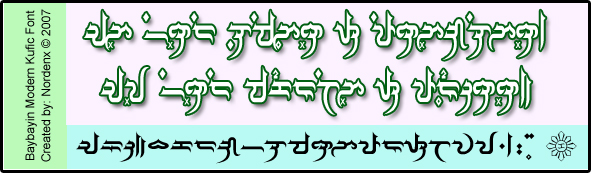
The Script
Baybayin script is an ancient form of writing by native islanders and tribes in the South East Asian archipelago we now know as the Philippines.
The Font
I created true type fonts (TTF) I called "Baybayin Modern" to use in modern art. The fonts are stylized modern composite of many examples from the past but the style is based primarily on my calligraphy work and handwriting. These fonts should not be considered as historically accurate examples of the Baybayin. The font is calligraphic & artistic representations and the characters’ shapes, sizes and weights have been made uniform in order to present a neat and elegant printed appearance.
The Style (Kufic)
Kufic is the oldest calligraphic form of the various Arabic scripts and consists of a modified form of the old Nabatean script. It was in this script that the first copies of the Qur'an were written. Islam is one of the oldest organized religions to be established in the Philippines. Although Baybayin Script's most probable origins are of India's Hindu influenced Brahmic (Kavi) Script, Baybayin Modern Kufic pays homage to the rich cultural traditions of our Moro brothers and sisters.
The Sample
The script rendered in green outlined white baybayin kufic font reads:
"Ang hindi lumingon sa pinanggalingan, ay hindi makakarating sa paroroonan."
(Those who don't look back from where they came from, will never reach their destination.)